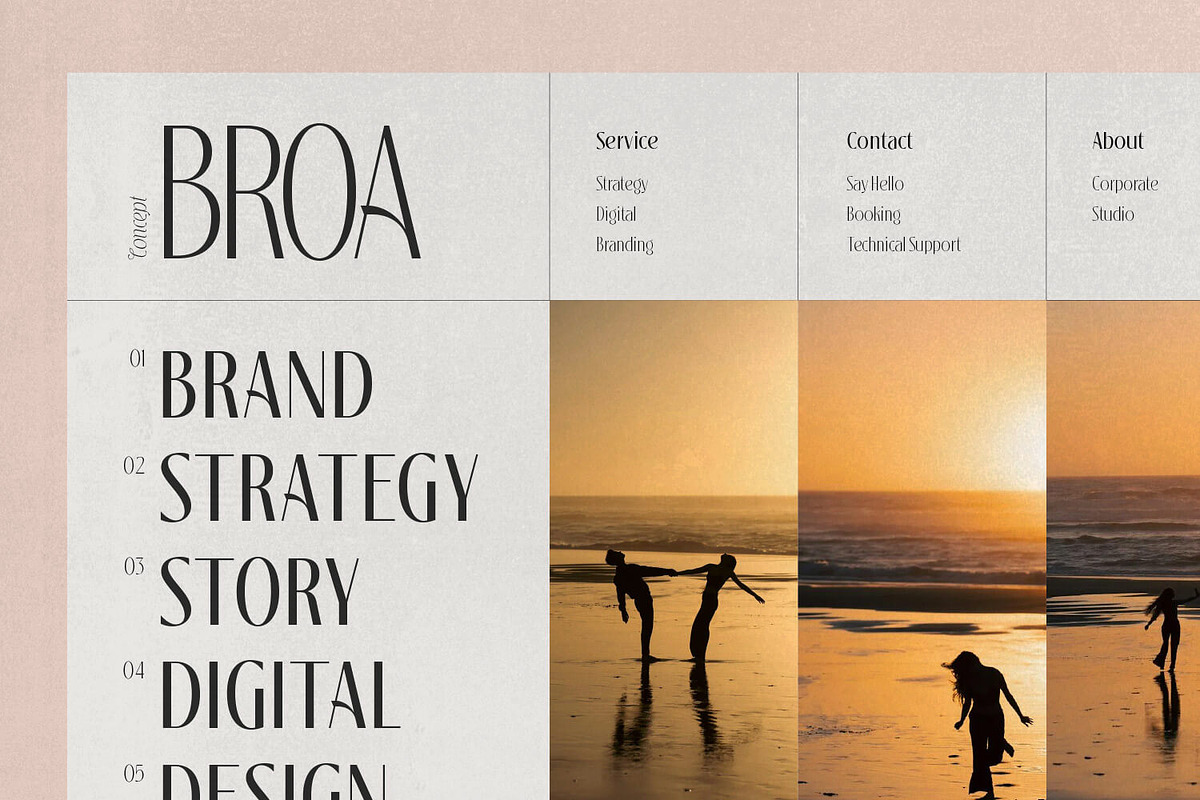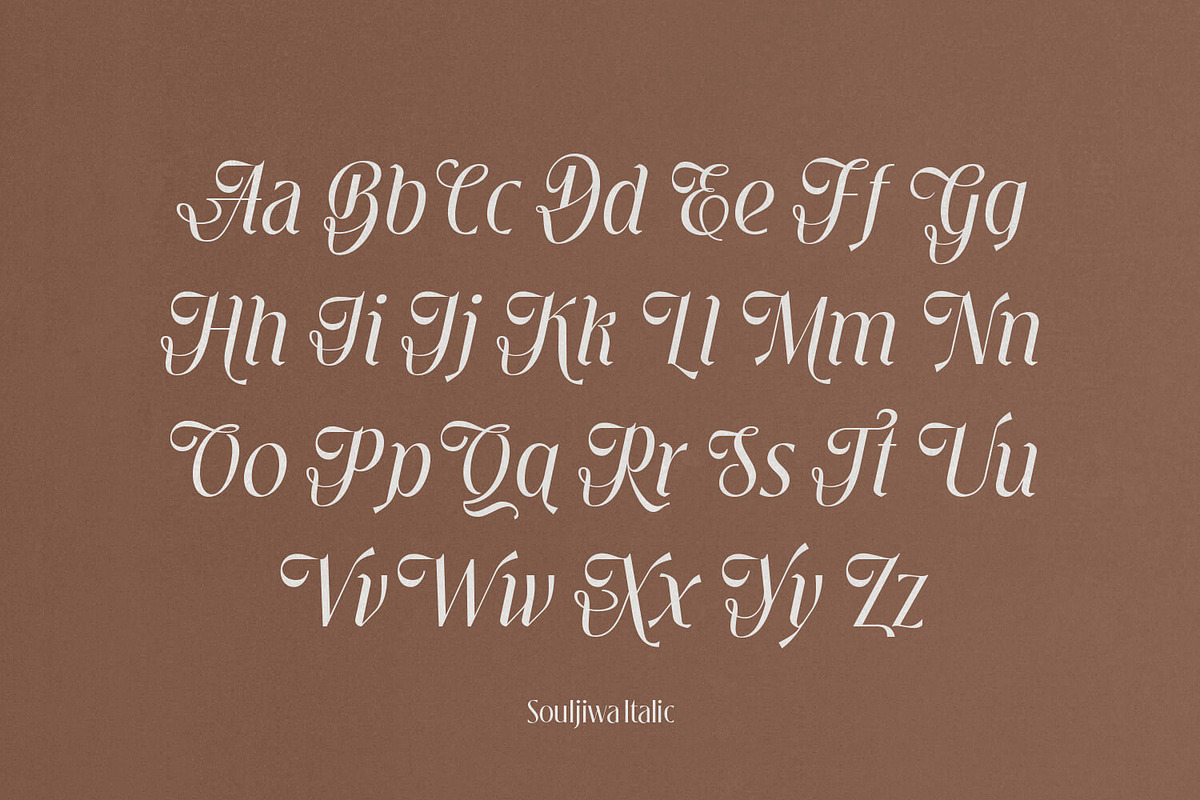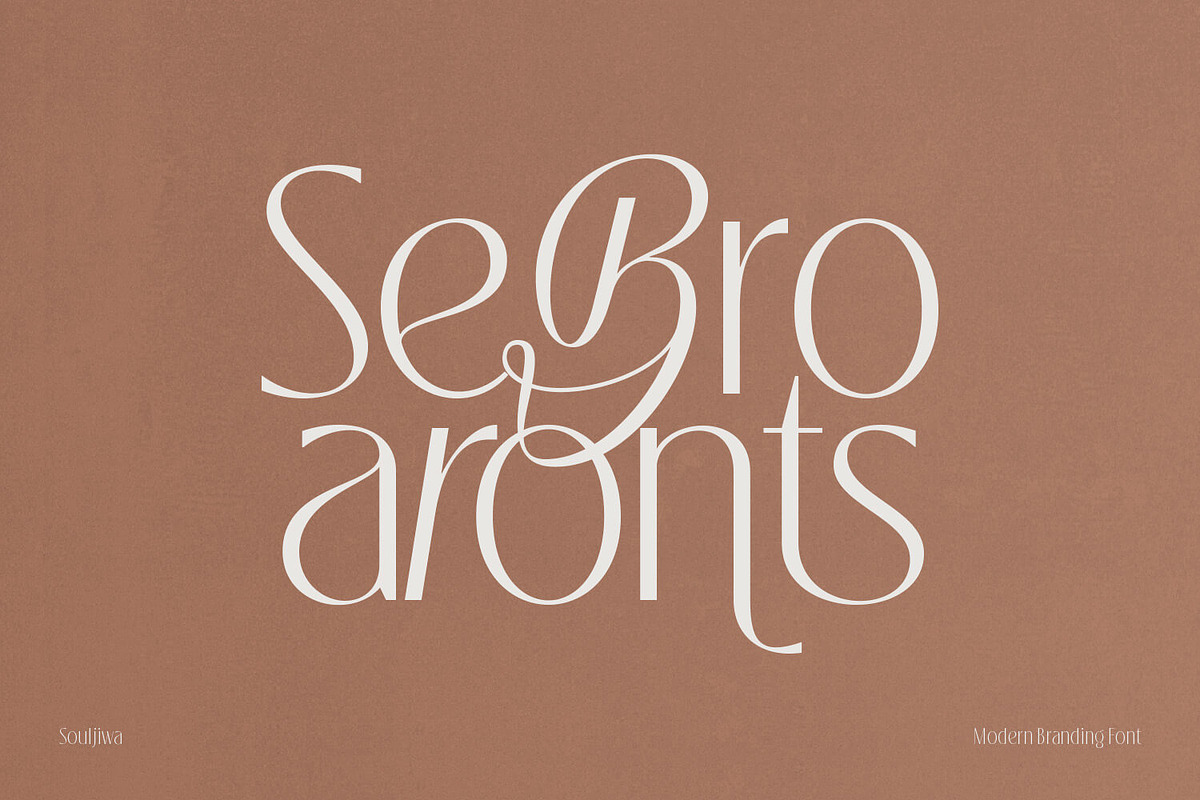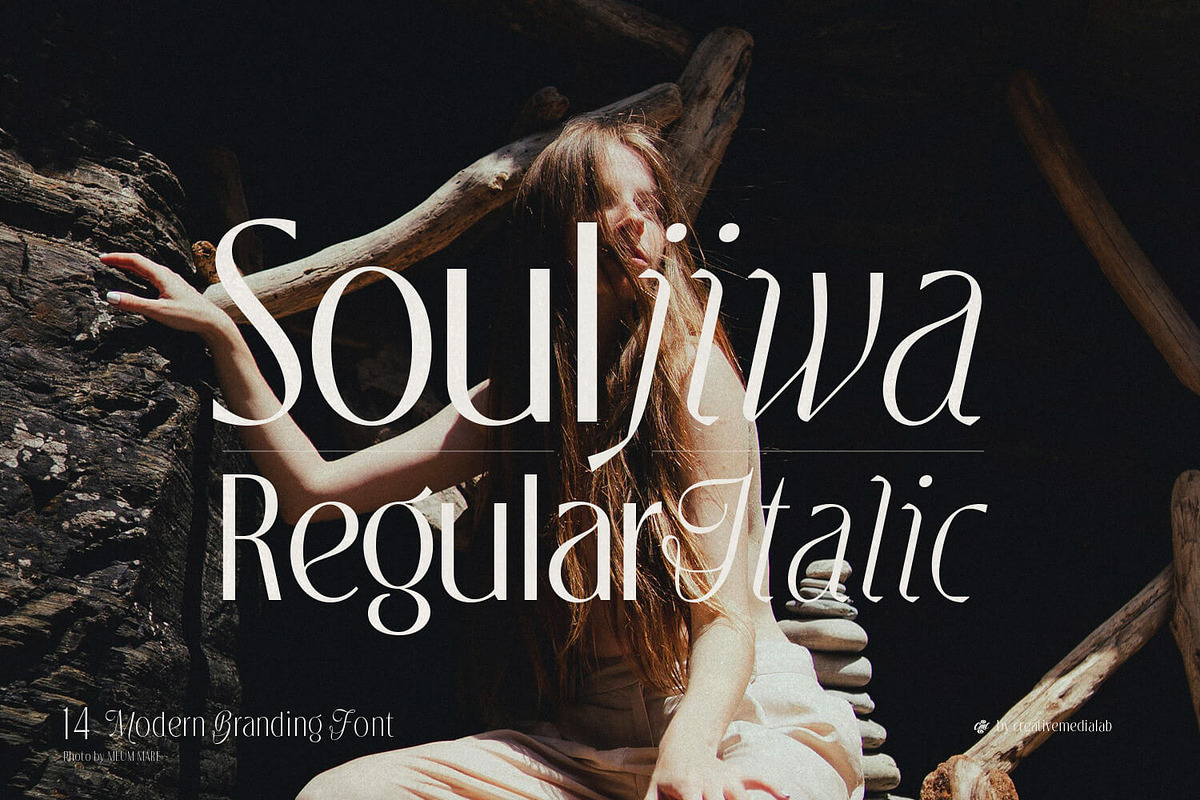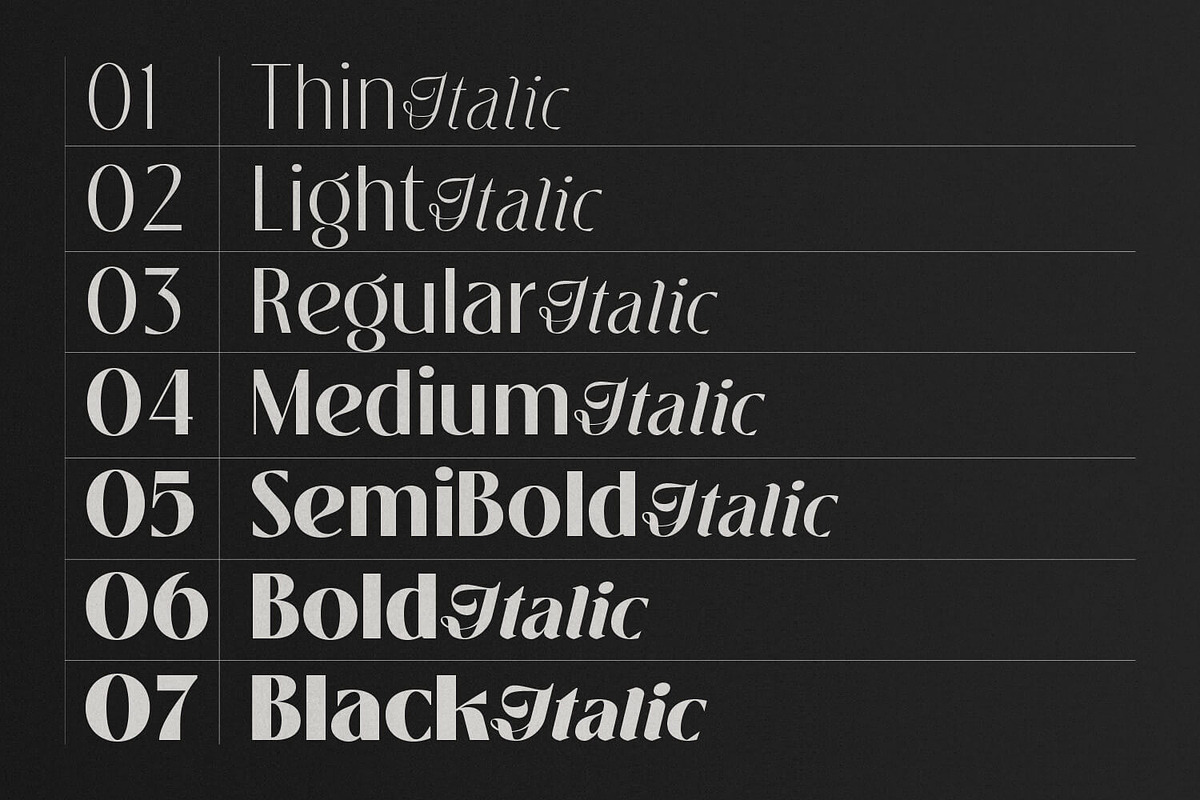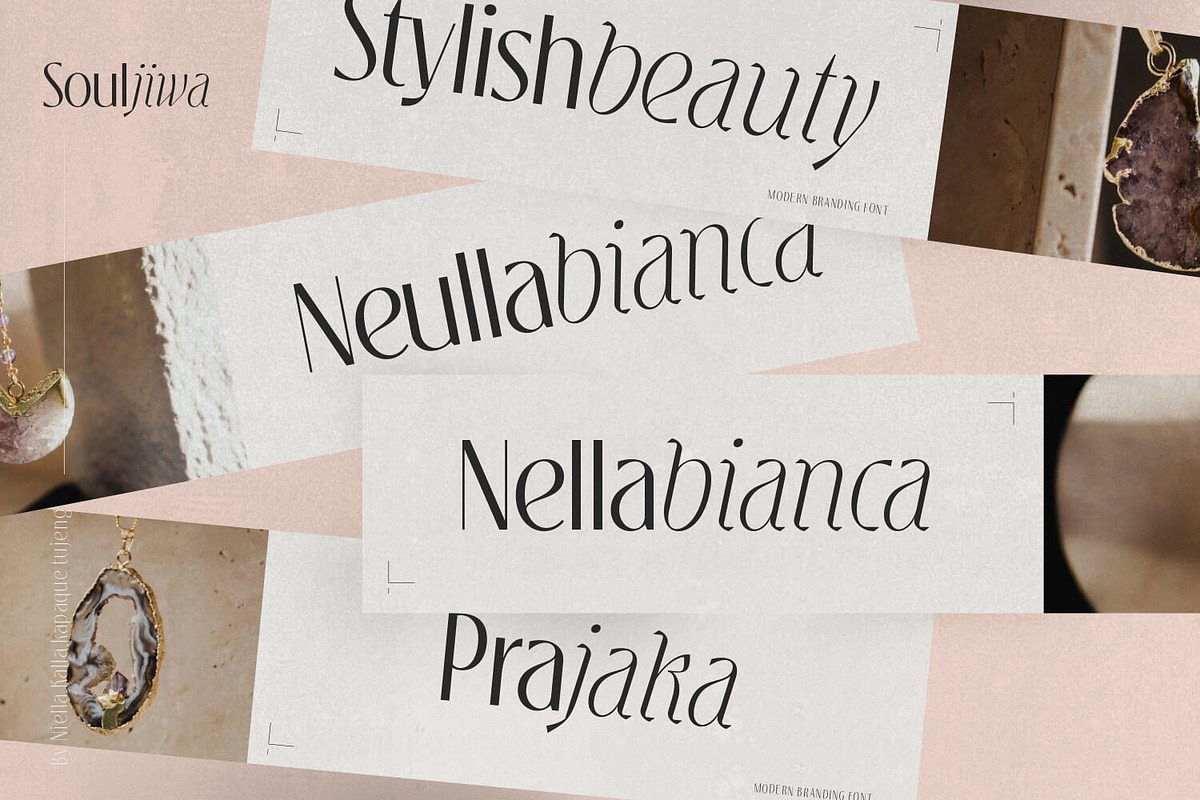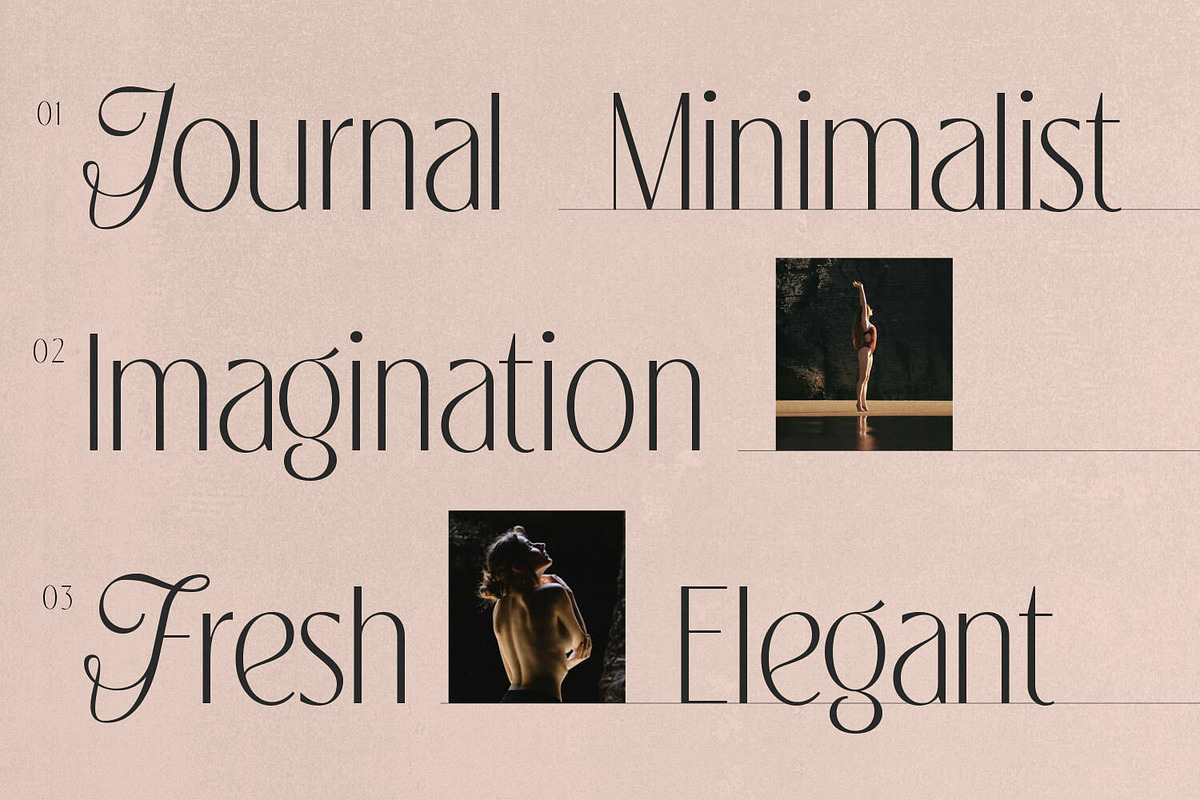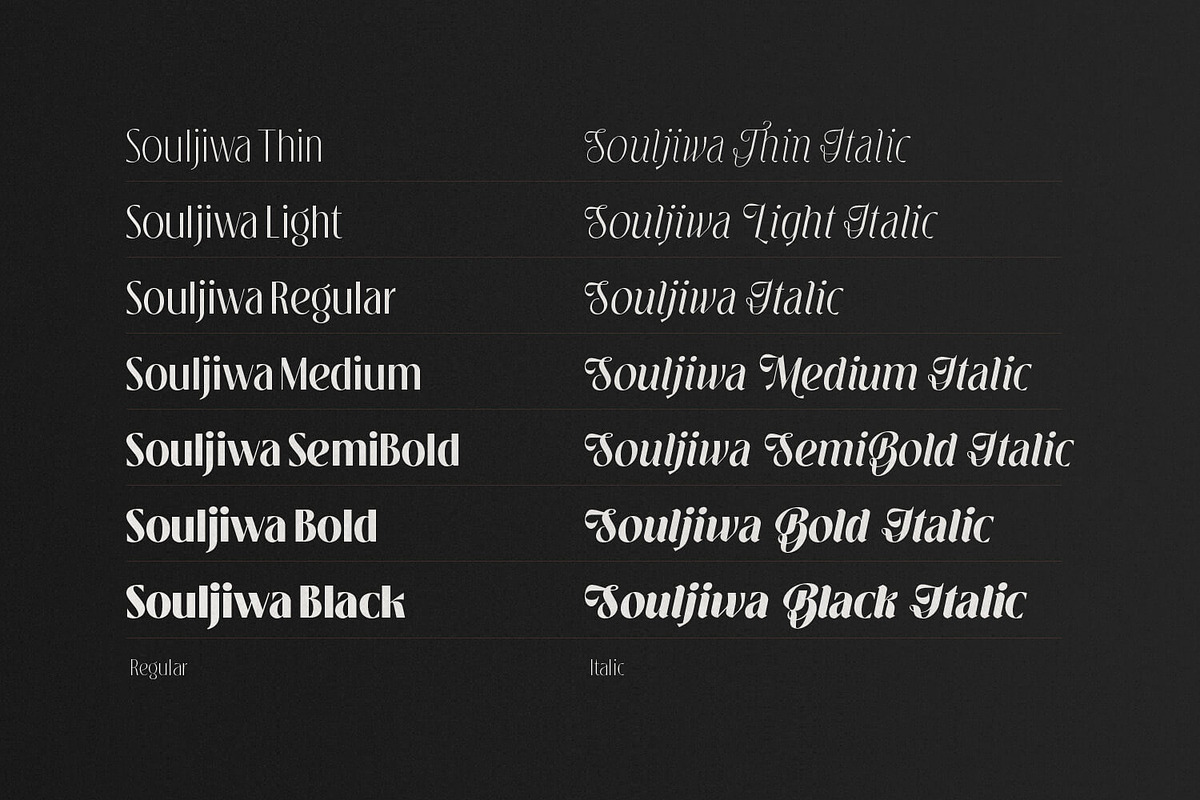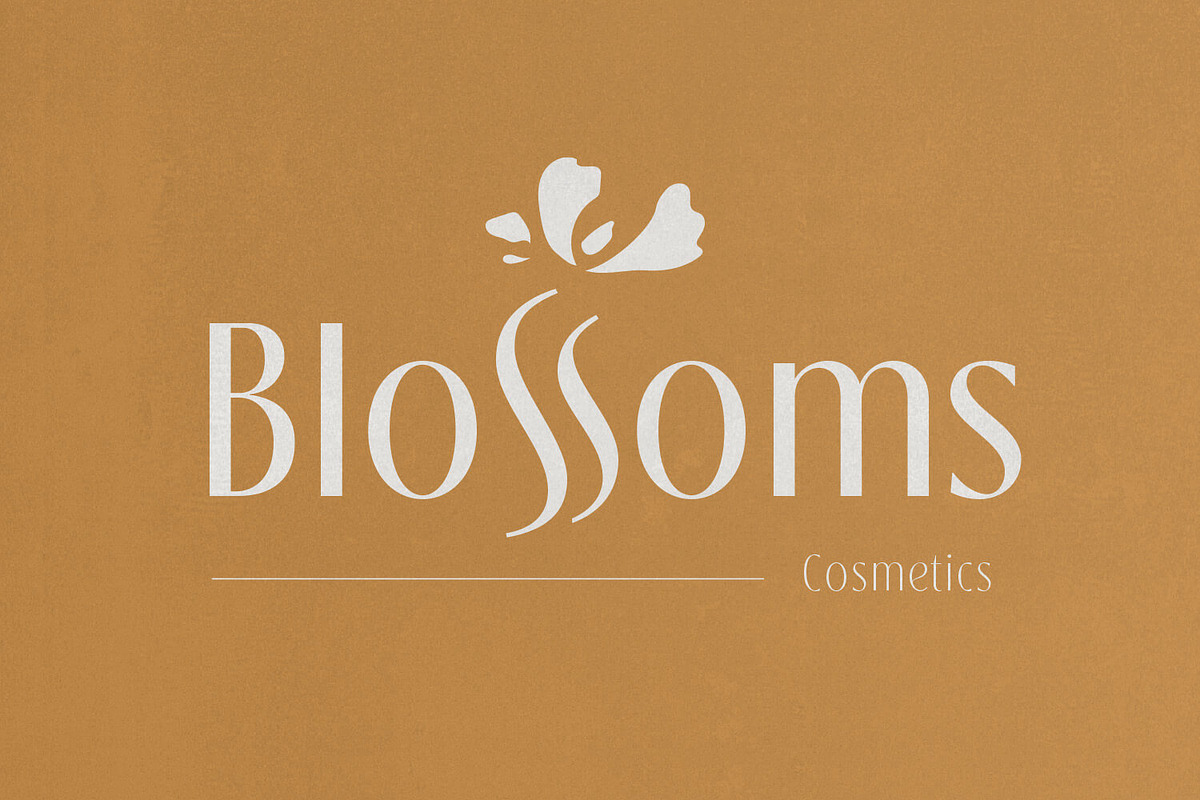
Souljiwa - Modern Branding Font
Introducing Soujiwa: a modern, elegant, classic typeface with Script italics. It includes seven weights, ranging from thin to black. Soujiwa is ideal for fashion-related concepts, cosmetics branding, luxury and elegant designs, classy or high-end branding, logos, and more.